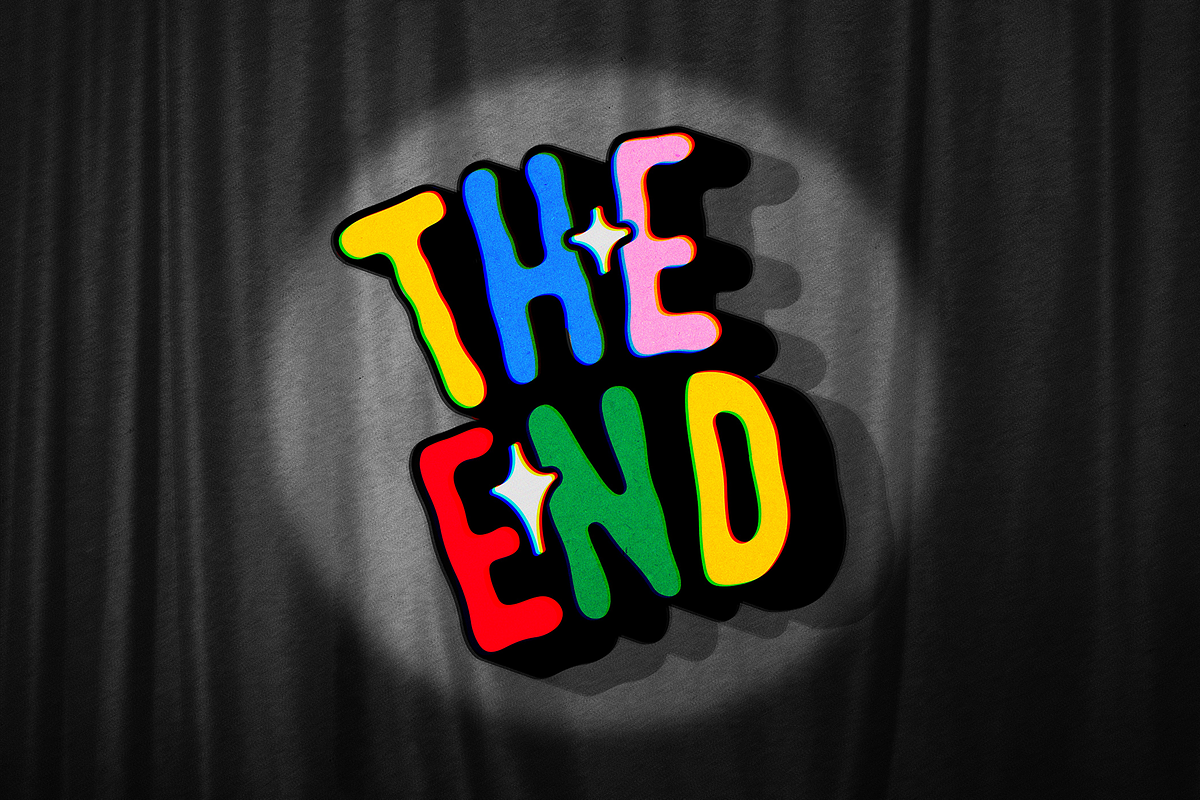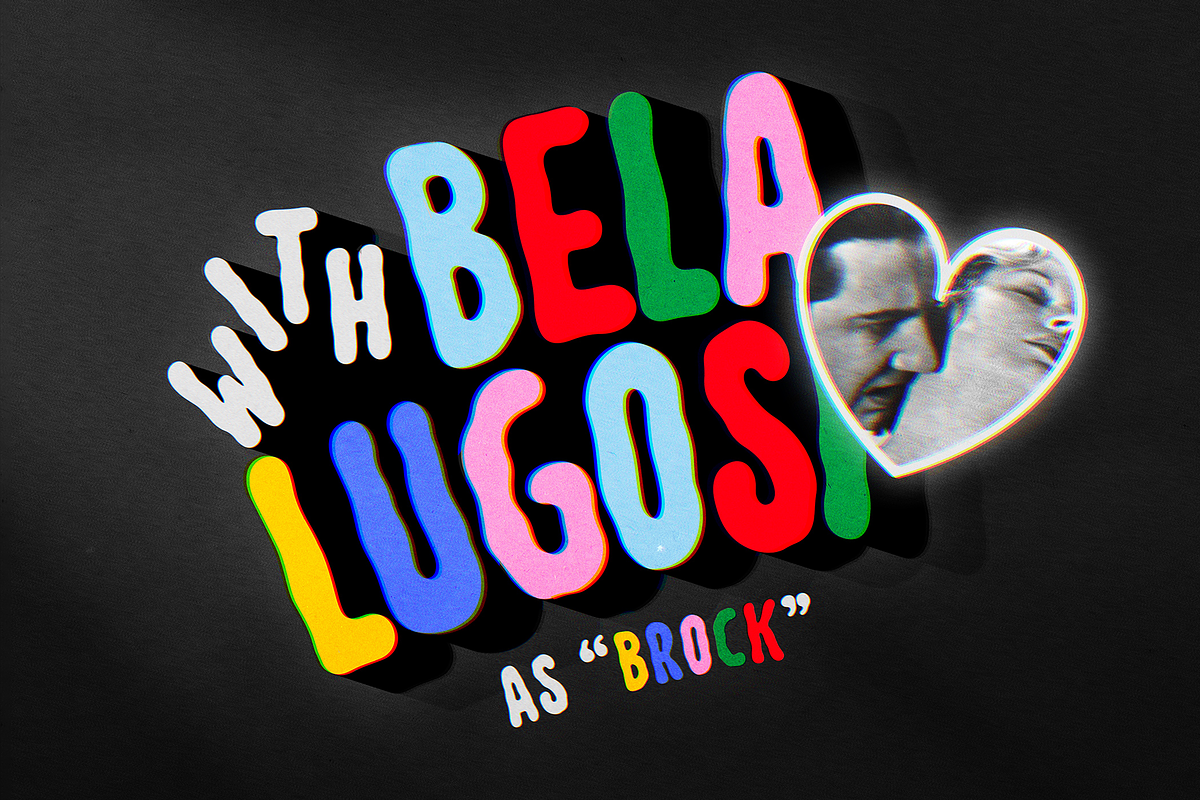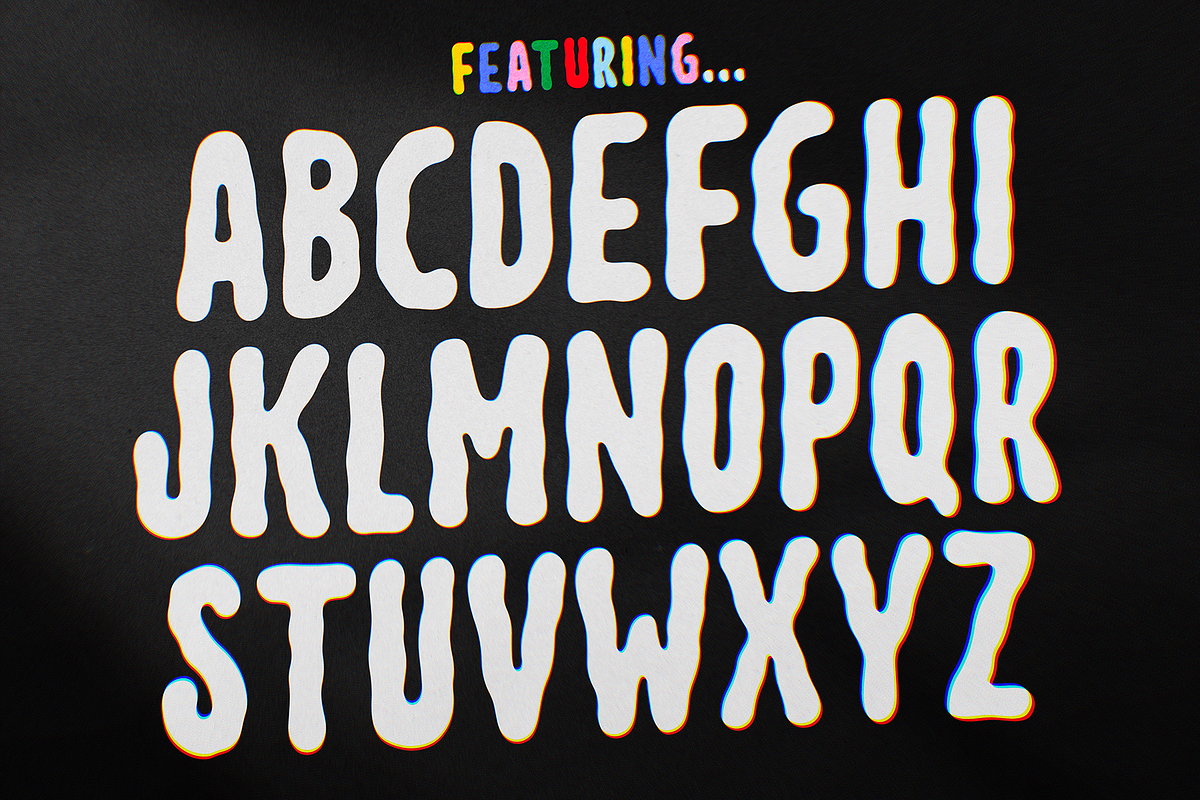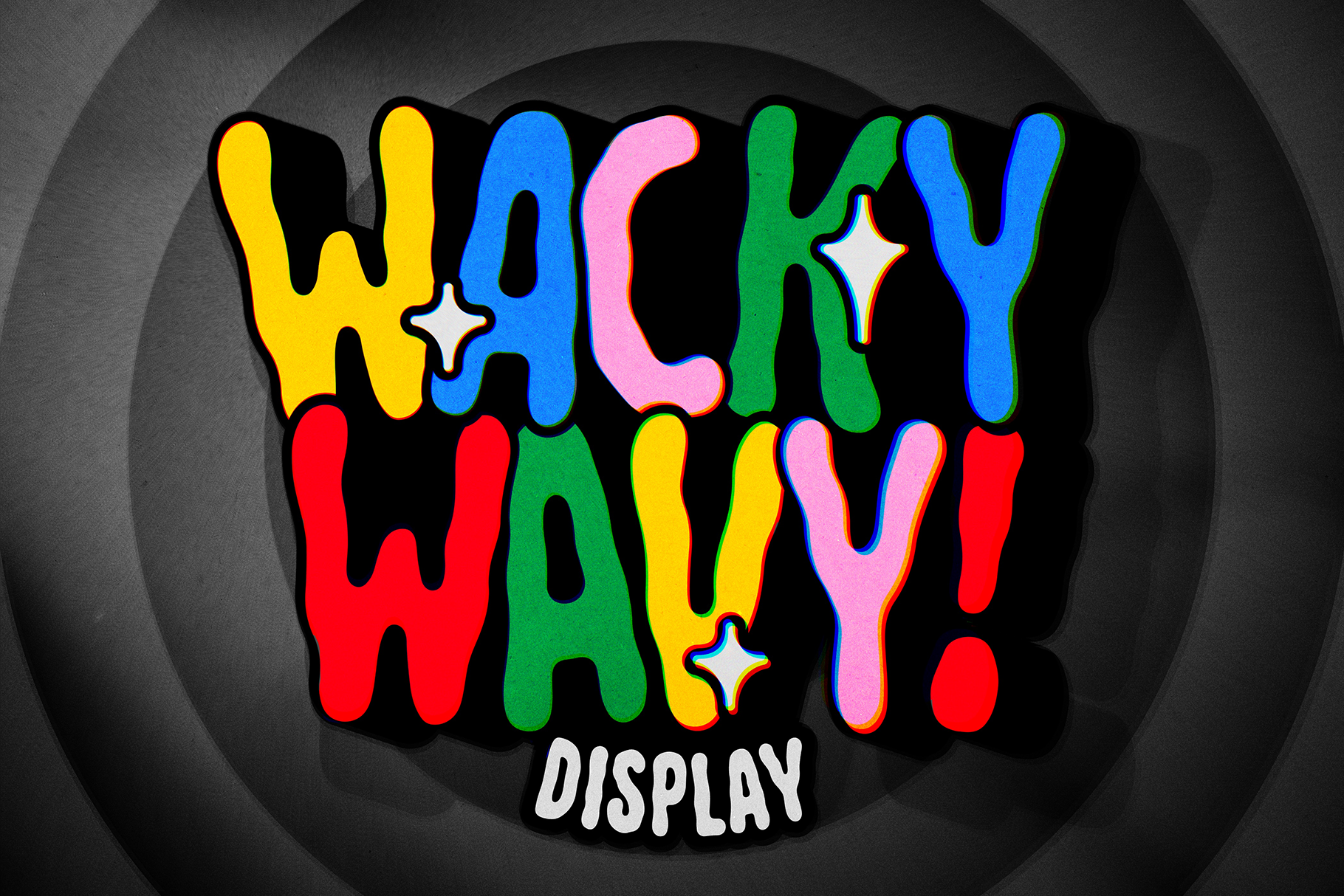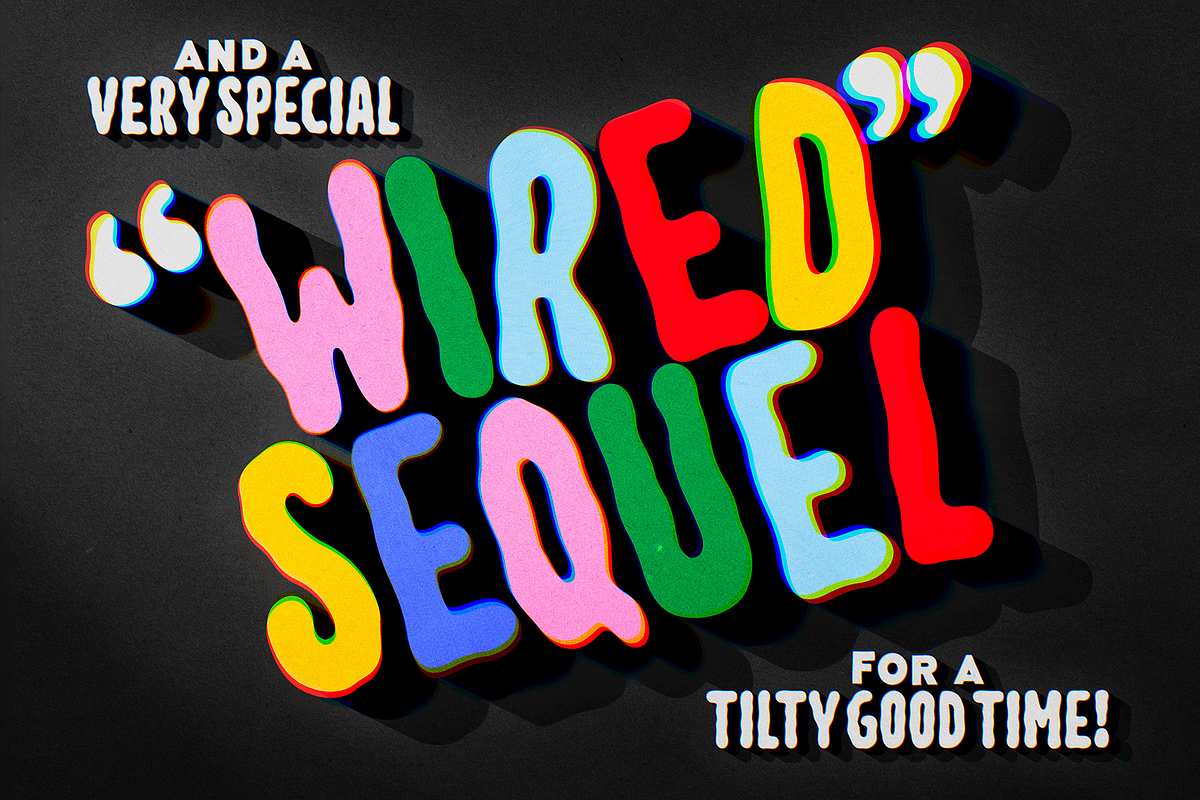
Wacky Wavy! A Wiggly Display Font
Hold on to your wiggly butts, because they're about to be flapping in the breeze with Wacky Wavy - our new, playful and expressive display font! Perfect for adding movement to headlines, making bold statements with social media graphics, and amping up the personality in your branding, this font is guaranteed to add a little color to a black and white world.
- Letters!
- Numbers!
- Symbols!
- Punctuation!